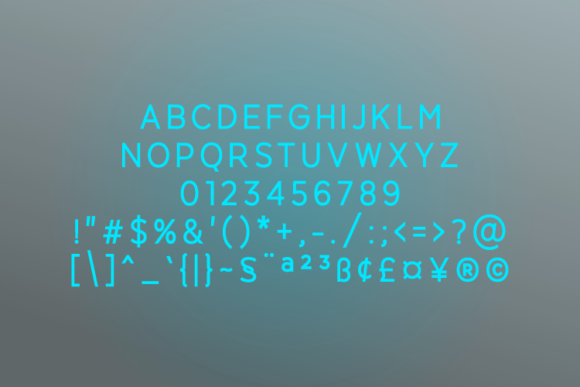
Agnella Bold Font: The Perfect Blend of Strength and Elegance
In the world of typography, fonts play a crucial role in conveying the tone and personality of a brand or design. For designers and crafters, finding the right font can be a daunting task. However, if you’re looking for a sans serif font that exudes strength, steadiness, and a touch of subtle elegance, look no further than Agnella Bold Font. In this article, we’ll explore the features and benefits of Agnella, and why it’s an excellent choice for your next design project.
The Unique Characteristics of Agnella Bold Font
Agnella is an effective sans serif font with a distinct touch of subtle elegance. Its vertically and horizontally cut stems make it appear strong and steady, perfect for designs that require a sense of reliability and professionalism. The font’s clean lines and minimalist aesthetic ensure that it remains versatile and adaptable, suitable for a wide range of applications, from branding and advertising to packaging and digital media.
Key Features of Agnella Bold Font
- Strong and Steady Appearance: Agnella’s unique stem design gives it a robust and stable look, making it perfect for headlines, titles, and other display text.
- Subtle Elegance: Despite its bold appearance, Agnella has a refined and sophisticated feel, making it suitable for designs that require a touch of luxury or high-end appeal.
- Versatility: Agnella’s clean and minimalist design ensures that it can be used in a variety of contexts, from digital media to print materials.
- Excellent Legibility: The font’s clear and concise letterforms make it easy to read, even at smaller sizes.
Why Designers and Crafters Love Agnella Bold Font
Agnella Bold Font has quickly become a favorite among designers and crafters due to its unique combination of strength, elegance, and versatility. Here are just a few reasons why:
- Easy to Pair: Agnella’s neutral design makes it easy to pair with other fonts, allowing designers to create harmonious and visually appealing typography.
- High-Impact Headlines: Agnella’s bold appearance makes it perfect for creating attention-grabbing headlines and titles that demand attention.
- Professional and Sophisticated: The font’s refined aesthetic ensures that it can be used in professional and corporate designs, such as business cards, brochures, and presentations.
Using Agnella Bold Font in Your Designs
Whether you’re working on a branding project, creating marketing materials, or designing a website, Agnella Bold Font is an excellent choice. Here are a few tips for incorporating Agnella into your designs:
- Use it as a Headline Font: Agnella’s bold appearance makes it perfect for headlines and titles.
- Pair it with a Serif Font: Combining Agnella with a serif font can create a visually appealing contrast and add depth to your design.
- Experiment with Colors and Textures: Agnella’s versatility allows it to be used with a wide range of colors and textures, so don’t be afraid to experiment and find the perfect combination for your design.
In conclusion, Agnella Bold Font is an exceptional sans serif font that offers a unique blend of strength, elegance, and versatility. Its strong and steady appearance, subtle elegance, and excellent legibility make it an excellent choice for designers and crafters looking to create professional and sophisticated designs. Whether you’re working on a branding project, creating marketing materials, or designing a website, Agnella Bold Font is sure to become a valuable addition to your typography toolkit.